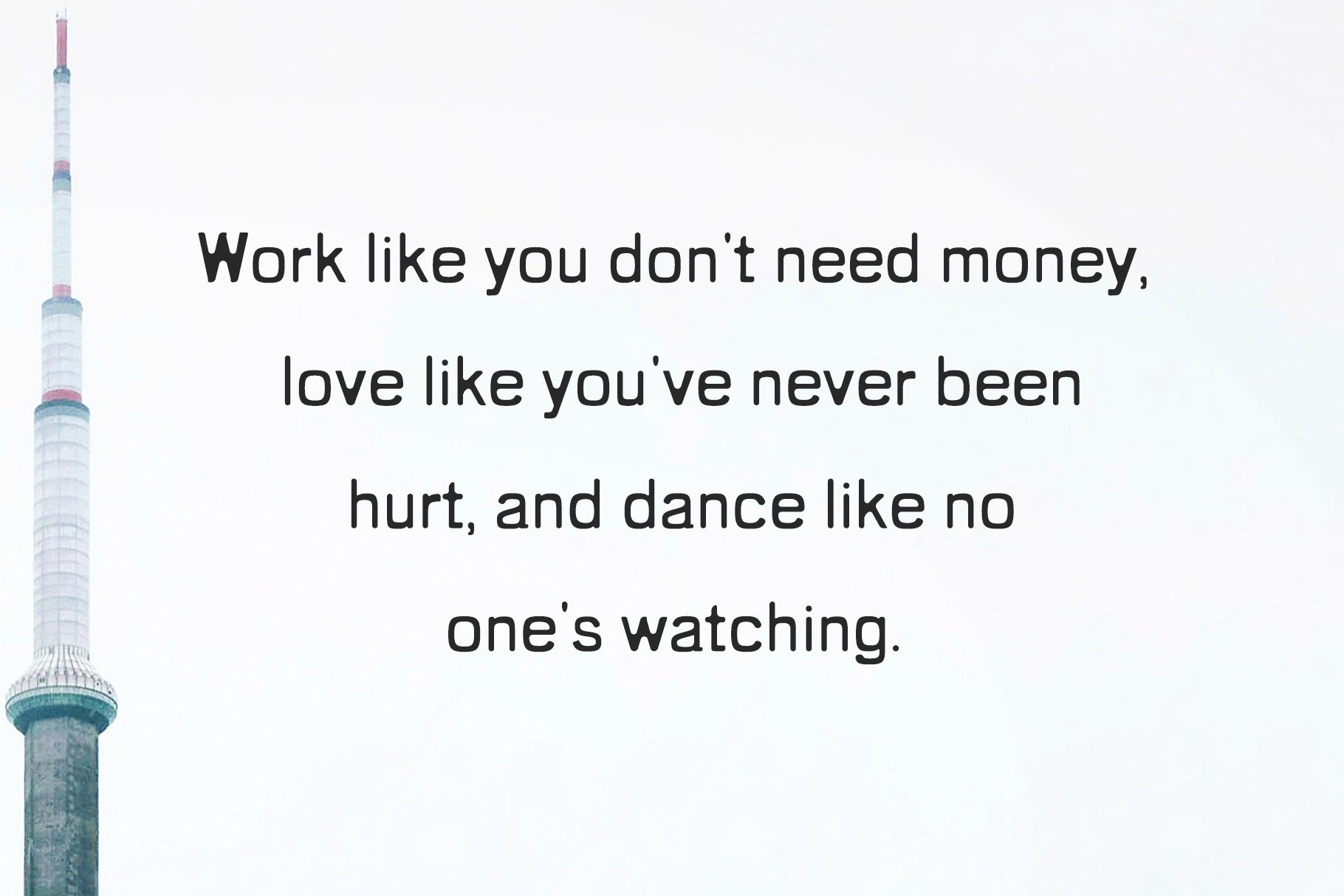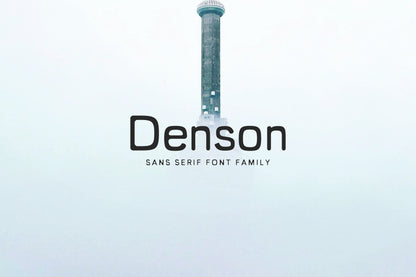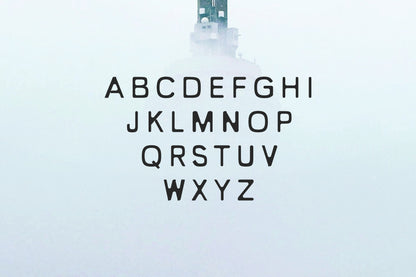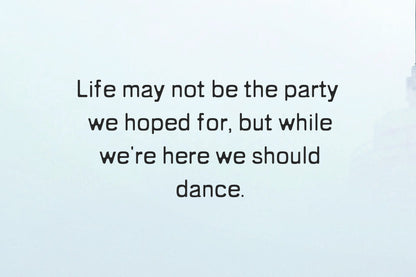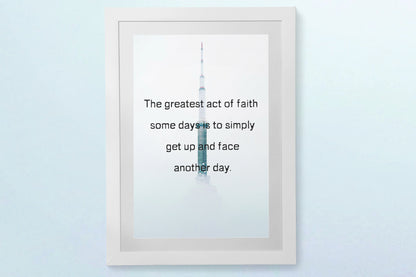
Denson Sans Serif Font Family is a unique, rounded sans serif font. It includes 3 weights.
It can be used to create great unique designs for logos, texts, presentations, posters, magazines, notices, titles, name card, magazine, web layouts, invitations, headers, branding and other any business related.
It looks gorgeous in all caps with a wide-set spacing if you want to try a classy look, or beautiful on its own in capital and lowercase letters for something completely timeless.
Font Weight: Regular, Light, and Bold
Uppercase Letters
Lowercase Letters
Numbers & Punctuation
Non English Characters ( Latin Supplement + Latin Extended A )